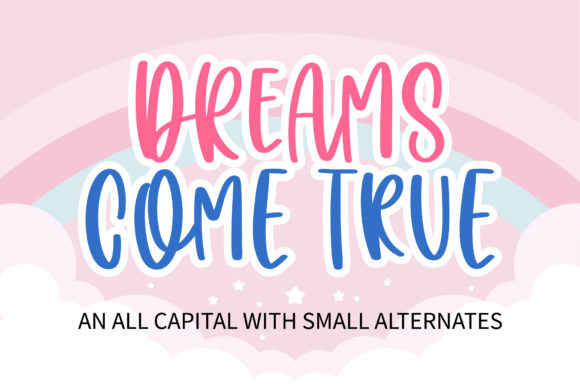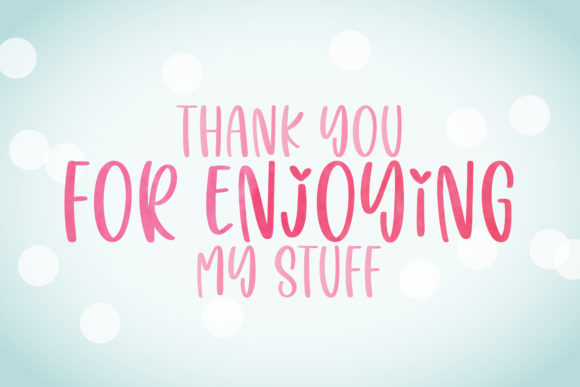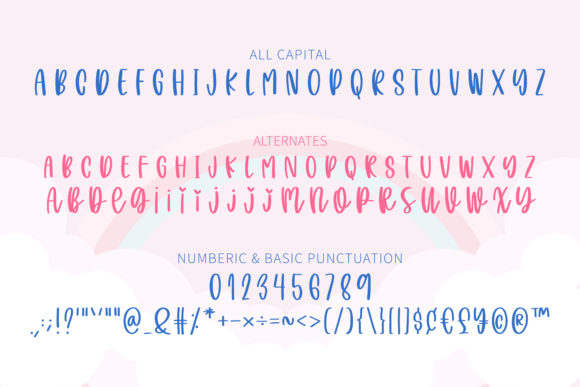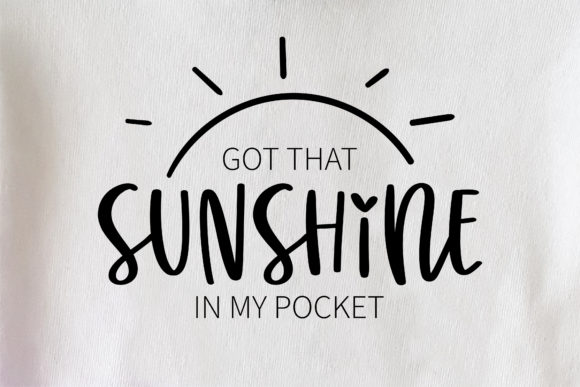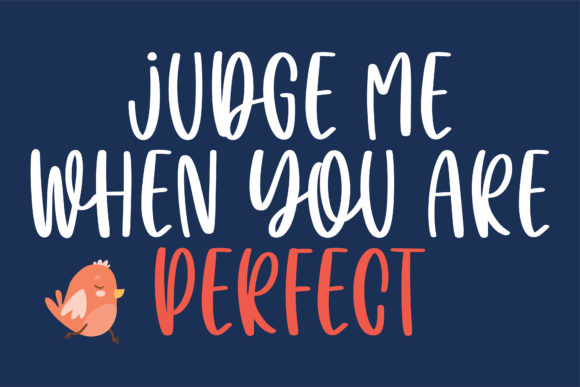
Dreams Come True Font
About Dreams Come True Font
Dreams Come True is a cute handwritten font. Its natural and unique style makes it incredibly fitting for a large pool of designs. The only limit is your imagination!
Fall in love with its playful style and use it to create beautiful stationary art, eye-catching social media posts, and much more!